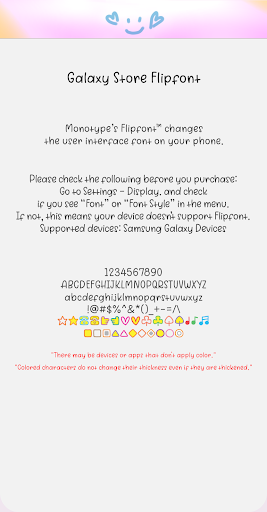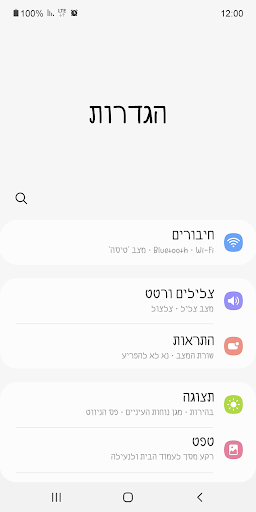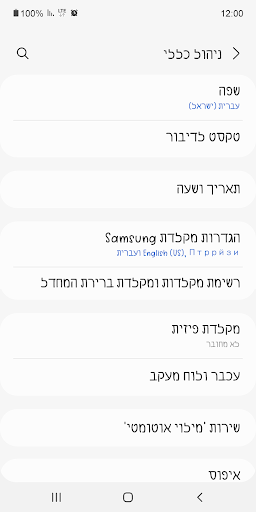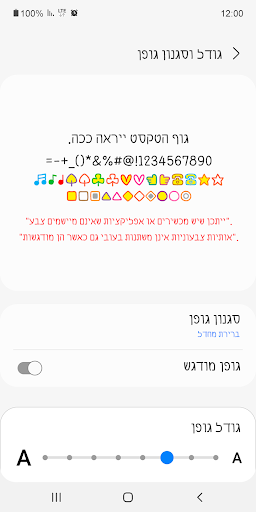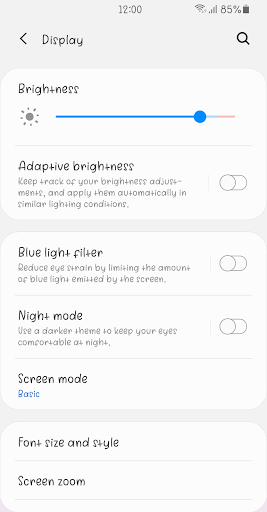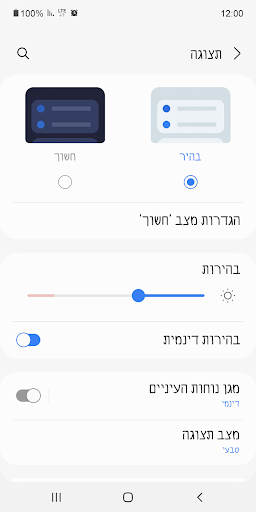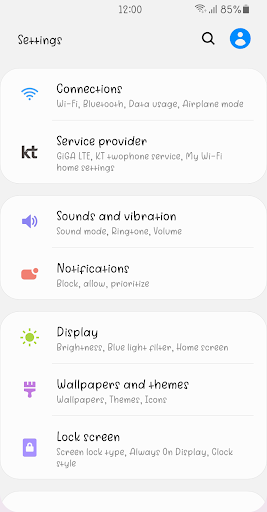
GFFreshSmile
A cute and simple hand-lettered sans serif font! Have fun. "There may be devices or apps that don't apply color."
"Colored characters do not change their thickness even if they are thickened."